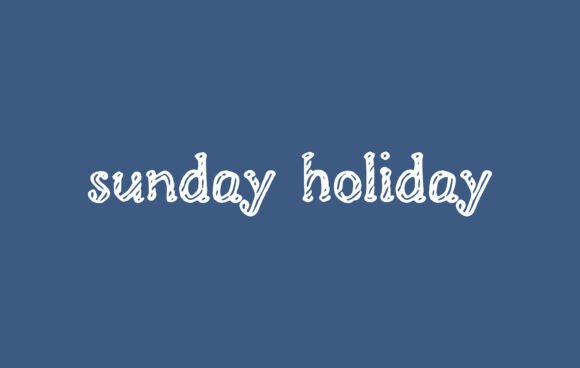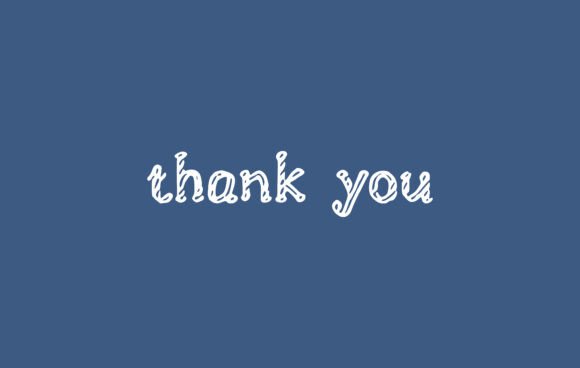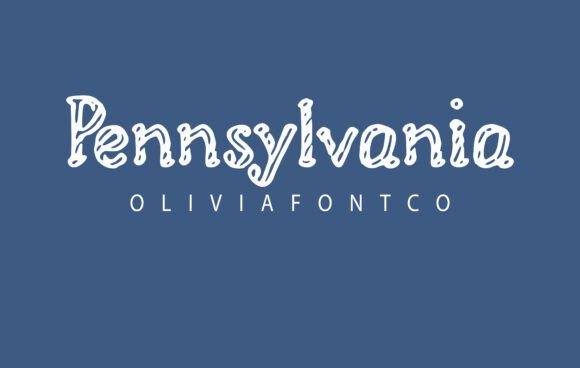
Introduction to Pennsylvania Font
Pennsylvania font is an authentic handwritten font with a romantic touch.
Why Choose Pennsylvania Font?
Pennsylvania Font offers exceptional quality and versatility, making it a valuable addition to your design toolkit. Whether you’re creating for personal projects or commercial use, Pennsylvania Font delivers professional results.